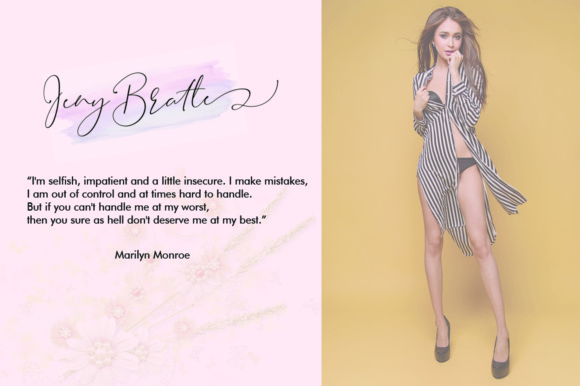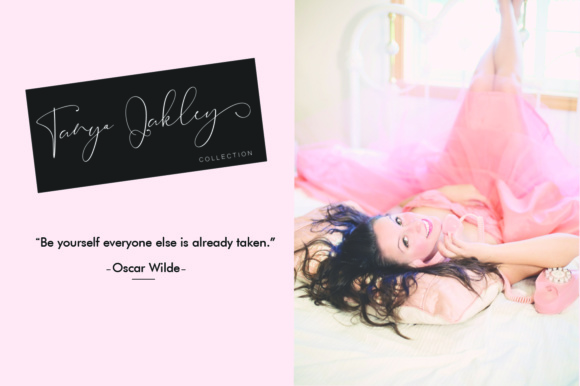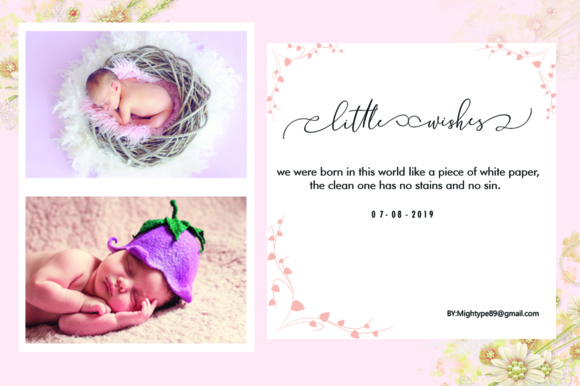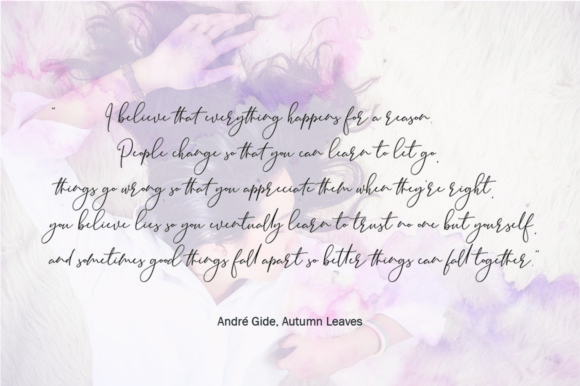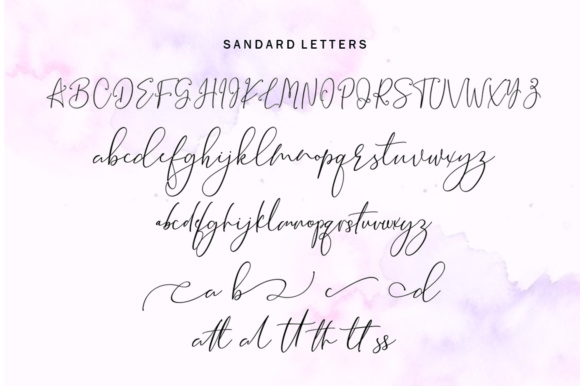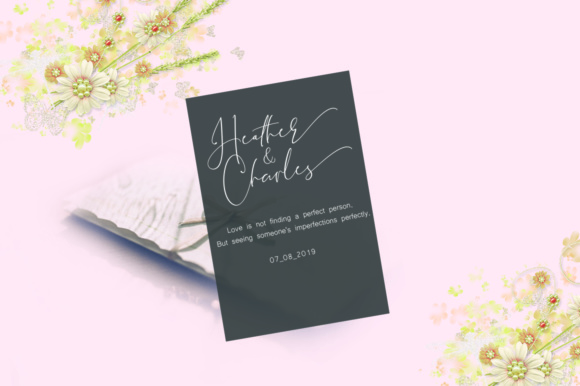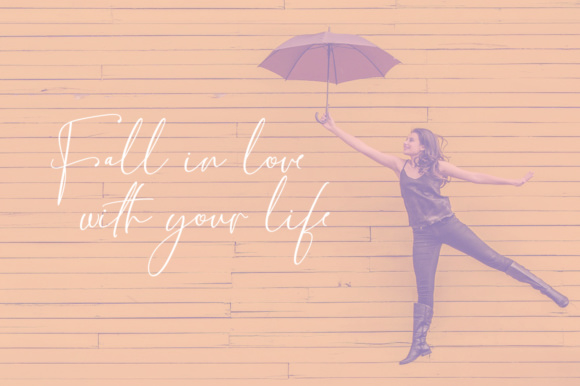
Brooke Smith Script Font
About Brooke Smith Script Font
Brooke Smith is a modern calligraphy font. With its beautiful handwriting style, it’s perfect for branding, wedding invites, magazines, mugs, business cards, quotes, posters, and more.